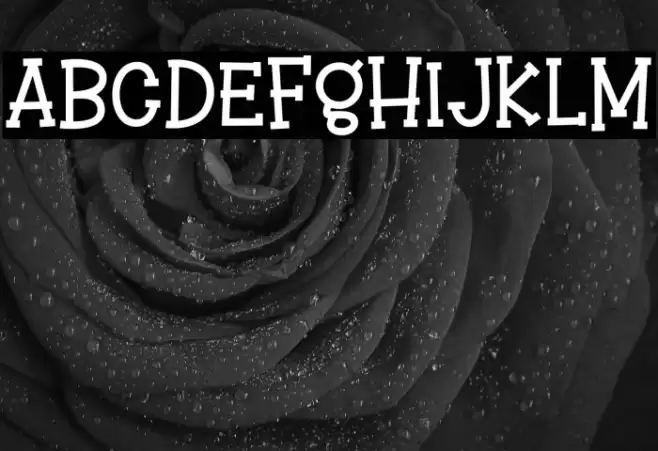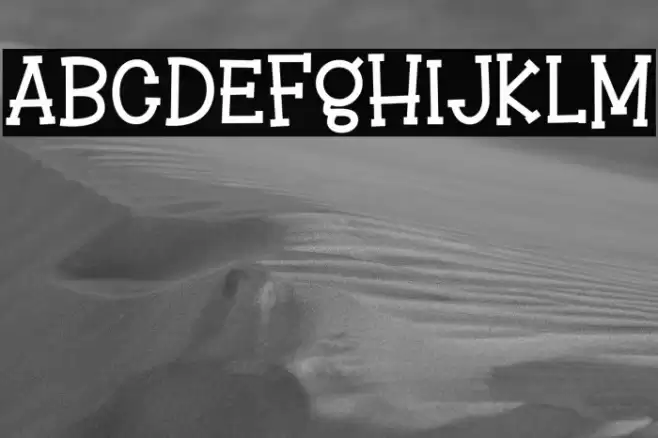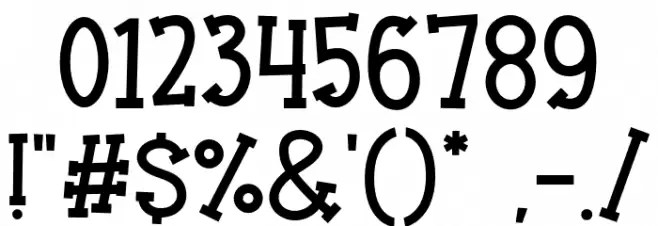
Mango Nice Font
Mango Nice Description
This font features a playful and whimsical design with a bold and slightly irregular style. The characters have a hand-drawn appearance, giving them a unique and artistic flair. The uppercase letters are distinct with exaggerated serifs and varying line thicknesses, adding to the font's quirky charm. The lowercase letters maintain the same playful aesthetic, complementing the uppercase set. Numbers and special characters are equally bold and expressive, making them stand out. This font is perfect for projects that require a fun and lively touch.
A playful, bold font with a hand-drawn, whimsical style from Uncategorized fonts.
- Font: Mango Nice
- Proposed Projects: Ideal for children's books, playful branding, party invitations, and creative posters.
- Overall Style: Playful, Artistic